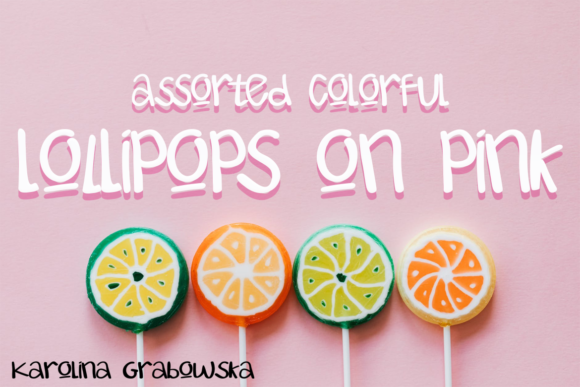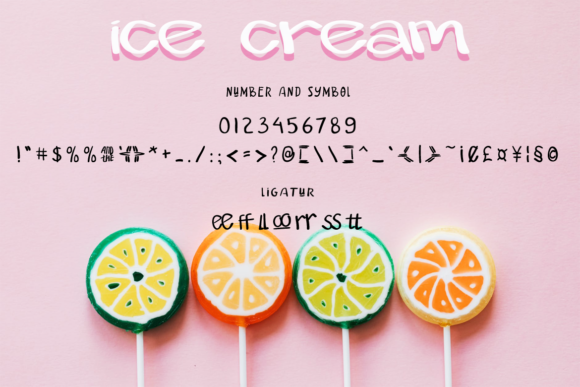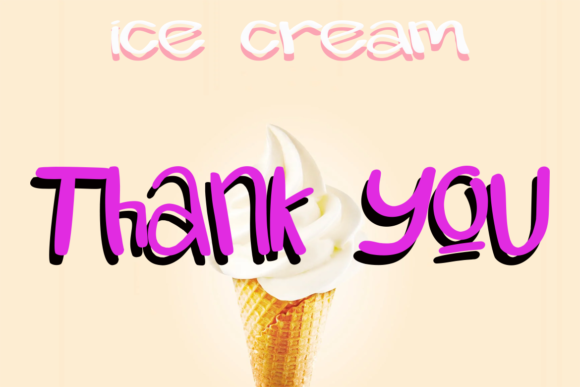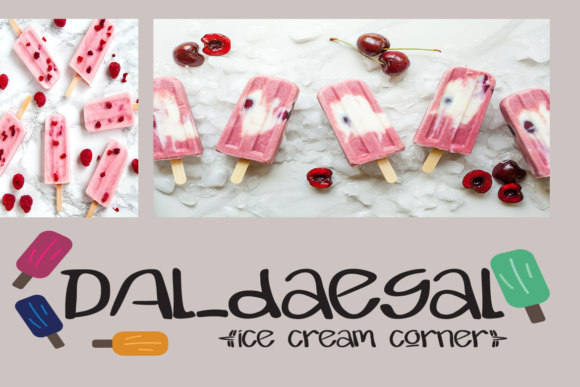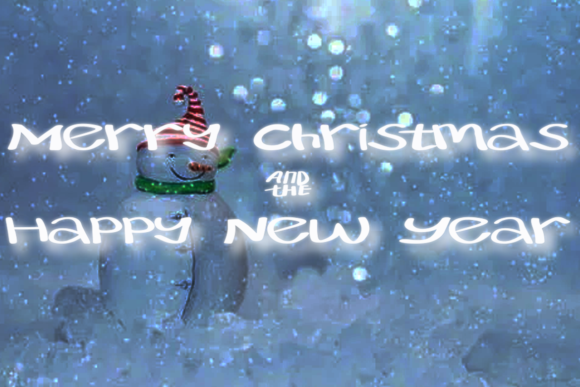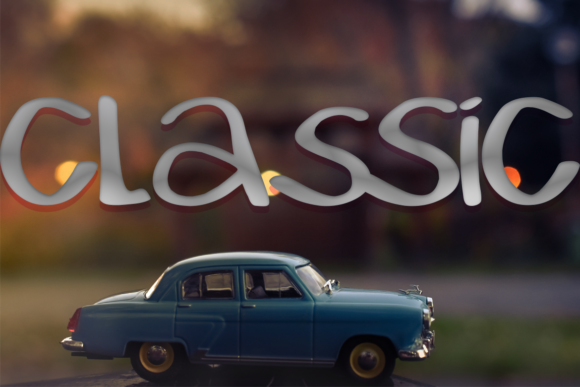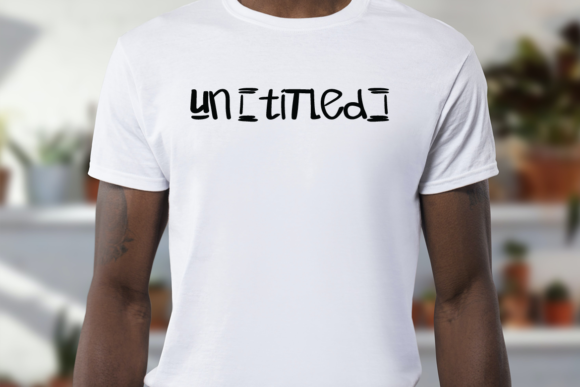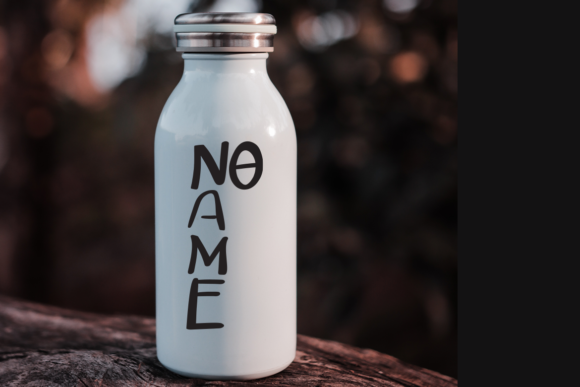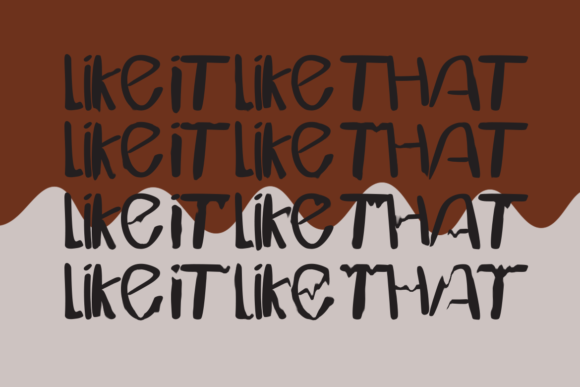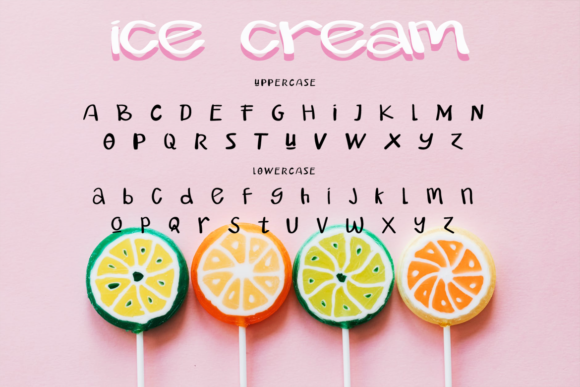
Ice Cream Font
About Ice Cream Font
Ice Cream is a cute script font with smooth letters and quirky style. Add this beautiful display font to each of your creative ideas and notice how it makes them stand out!